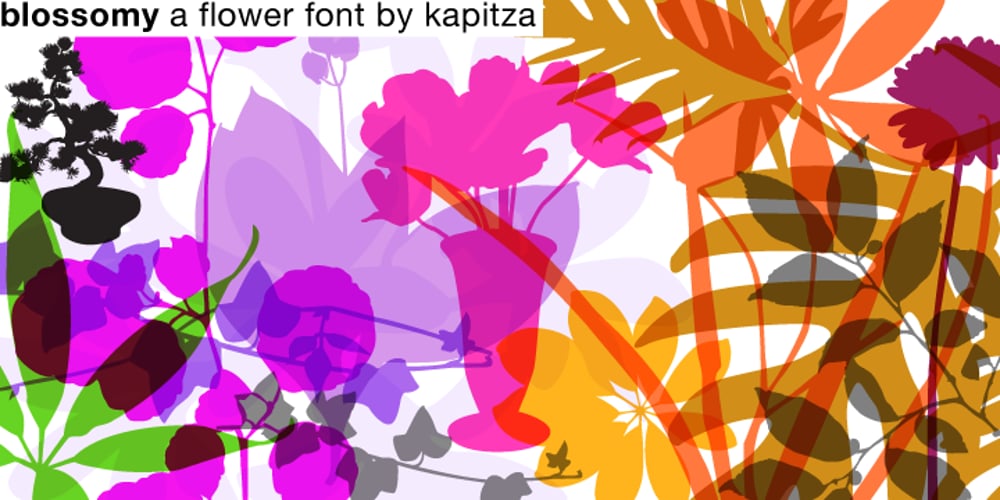
Blossomy Font Family was designed by published by kapitza. Blossomy contains 1 styles and family package options. Blossomy is a pictographic font consisting of 72 plant and flower illustrations, designed by kapitza. The font explores the beauty of shapes and structures in nature. The illustrations are based on photographs which have been traced by hand and are the result of a long term interest in the organic and erratic lines of naturally growing plants. The idea for Blossomy originated several years ago via a series of paintings exploring forms and structures in nature. The outlines for those paintings were traced in Illustrator and then transferred onto canvas. The outcome was so simple and beautiful that the designers decided to keep working on new illustrations and combine them in a font. Blossomy can be used as individual illustrations or to create patterns. The font covers a wide variety of flora and fauna, including pot flowers, a bonsai trees, leaves, blooms and grasses, and gives creatives a wide variety of shapes to get inspired by and use in their work.